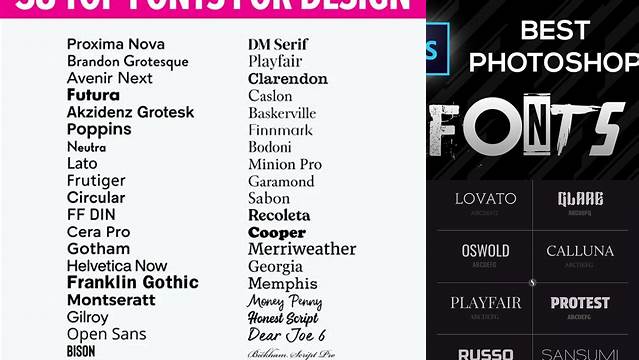
Best Fonts For Photoshop: Reddit's Top Picks
Hey guys! Ever scrolled through Reddit threads looking for the perfect font for your Photoshop project? It’s a rabbit hole, I know! But fear not, because we're diving deep into the best fonts for Photoshop, straight from the Reddit community’s top recommendations. Whether you’re designing a logo, creating stunning typography, or just adding some flair to your visuals, choosing the right font is crucial. Let's explore the world of Photoshop fonts together and find the perfect match for your creative endeavors. From sleek and modern to vintage and quirky, the options are endless. So, grab your coffee, and let’s get started on this font-astic journey!
1. Best Free Fonts for Photoshop According to Reddit
Finding the best free fonts for Photoshop can feel like searching for a needle in a haystack, but Reddit users have come through with some stellar recommendations. When it comes to designing, no one wants to break the bank just to get the perfect typeface. Many Redditors swear by websites like Google Fonts, which offers a vast library of open-source fonts that are not only free but also high-quality. Some of the standout favorites often mentioned include Montserrat, a versatile sans-serif that works beautifully in various contexts, and Roboto, another widely used and appreciated font known for its clean and modern aesthetic. Open Sans is another strong contender, praised for its readability and adaptability, making it an excellent choice for body text as well as headings. The beauty of these free fonts is that they offer a professional look without costing a dime, which is perfect for both budding designers and seasoned pros looking to expand their font arsenal. Besides Google Fonts, sites like Font Squirrel and DaFont are also goldmines, offering a wide array of styles from classic to quirky. However, it's always a good idea to double-check the licensing terms to ensure the font is suitable for your intended use, especially for commercial projects. Remember, the right font can make or break a design, so taking the time to explore these free options can be incredibly rewarding.
2. Top Premium Fonts Recommended by Reddit Photoshop Users
While free fonts are fantastic, sometimes you need that extra something that premium fonts offer. Reddit Photoshop users often share their favorite premium fonts, and the recommendations are worth considering if you're looking for a distinctive typeface. Premium fonts often come with more extensive character sets, including various weights, styles, and glyphs, giving you greater flexibility and control over your typography. Popular foundries like MyFonts, Adobe Fonts, and Creative Market are frequently mentioned, each offering a vast selection of fonts crafted by talented designers. Fonts like Proxima Nova and Helvetica Now are frequently lauded for their versatility and timeless appeal, making them solid investments for any designer. Others, like Futura and Avenir, are celebrated for their modern and geometric forms, ideal for branding and display purposes. What sets premium fonts apart is not just their aesthetic quality but also the level of polish and attention to detail. The kerning, spacing, and overall design are meticulously crafted, resulting in a typeface that looks professional and refined. Investing in a well-designed premium font can elevate your work, giving your projects a distinctive edge. Furthermore, premium fonts often come with excellent support and updates, ensuring they remain compatible with the latest software and design trends. So, if you're serious about typography, exploring the world of premium fonts is definitely worth the investment.
3. Fonts for Logos in Photoshop: Reddit's Choice
Choosing the right font for a logo is crucial, and Reddit users have plenty of opinions on the best fonts for logos in Photoshop. A logo font needs to be memorable, readable, and reflective of the brand's identity. Sans-serif fonts like Montserrat, Bebas Neue, and Futura are frequently recommended for their clean and modern appearance, making them suitable for a wide range of businesses. These fonts offer excellent legibility, even at smaller sizes, which is essential for logo design. Serif fonts, such as Playfair Display and Garamond, can also be effective for logos, especially when aiming for a more classic or elegant look. The key is to select a font that aligns with the brand’s personality and target audience. For instance, a tech company might prefer a sleek, sans-serif font, while a luxury brand might opt for a sophisticated serif typeface. Reddit discussions often highlight the importance of font pairing, where combining two complementary fonts can create a visually appealing and balanced logo. For example, pairing a bold sans-serif for the main logo text with a delicate serif for the tagline can add depth and interest. It’s also worth considering custom fonts or modifying existing ones to create a unique logo that stands out from the competition. Ultimately, the best font for a logo is one that is both aesthetically pleasing and functionally effective, conveying the brand’s message clearly and memorably.
4. Best Cursive Fonts for Photoshop Recommended on Reddit
Cursive fonts can add a touch of elegance and personality to your designs, and the Reddit community has some fantastic recommendations for the best cursive fonts for Photoshop. Whether you’re working on wedding invitations, branding materials, or artistic projects, a well-chosen cursive font can make a significant impact. Fonts like Brush Script MT and Pacifico are popular choices for their flowing strokes and calligraphic feel. These fonts evoke a sense of warmth and creativity, making them ideal for designs that require a personal touch. Another favorite is Great Vibes, known for its graceful loops and swashes, perfect for adding a touch of sophistication. When using cursive fonts, readability is key, so it’s important to choose a font that is both beautiful and legible. Reddit users often advise using cursive fonts sparingly, primarily for headings or accents, rather than for body text. Pairing a cursive font with a clean sans-serif can create a visually appealing contrast, balancing elegance with clarity. Additionally, consider the overall tone of your design. A formal event might call for a more refined cursive font, while a casual project might benefit from a more playful script. Exploring different cursive styles, from classic calligraphy to modern brush lettering, can help you find the perfect match for your creative vision. Remember, a well-chosen cursive font can transform your design, adding character and charm.
5. Modern Fonts for Photoshop: Reddit's Favorite
For a sleek and contemporary look, modern fonts for Photoshop are the way to go, and Reddit users have plenty of suggestions. Modern fonts often feature clean lines, geometric shapes, and a minimalist aesthetic, making them ideal for designs that need a fresh and sophisticated feel. Sans-serif fonts like Montserrat, Avenir, and Futura are frequently praised for their versatility and timeless appeal. These fonts work well in a variety of contexts, from logos and branding to websites and print materials. Another popular choice is Helvetica Neue, known for its clean and neutral design, making it a reliable option for any project. When selecting a modern font, consider the overall tone and message of your design. A tech company, for example, might opt for a font with a strong, geometric structure, while a fashion brand might prefer a font with a more elegant and refined look. Reddit discussions often highlight the importance of kerning and spacing in modern fonts, as even slight adjustments can significantly impact readability and visual appeal. Font pairing is also crucial; combining a modern font with a contrasting style, such as a classic serif or a playful script, can create a dynamic and engaging design. Ultimately, the best modern font is one that effectively communicates your message while maintaining a contemporary and stylish aesthetic.
6. Vintage Fonts for Photoshop: Reddit Recommendations
If you're aiming for a retro or nostalgic feel, vintage fonts for Photoshop are your best bet, and Reddit has some excellent recommendations. Vintage fonts can evoke a sense of history and charm, adding character and depth to your designs. Fonts like Playfair Display, Garamond, and Baskerville are classic serif typefaces that exude elegance and tradition. These fonts are often used for projects that require a touch of sophistication, such as invitations, book covers, and branding materials for heritage brands. For a more rustic or industrial look, consider fonts like Courier New or American Typewriter, which have a distinct vintage typewriter aesthetic. These fonts are perfect for designs that aim to convey a sense of authenticity and craftsmanship. Reddit users often suggest exploring foundries that specialize in vintage-inspired fonts, as they offer a wide range of styles, from Art Deco to mid-century modern. When using vintage fonts, it’s important to consider the context and ensure the font aligns with the overall design concept. Pairing a vintage font with modern elements can create an interesting contrast, but it’s crucial to maintain a balance. Additionally, pay attention to the details, such as the weight and spacing of the font, to ensure readability and visual harmony. Ultimately, the right vintage font can transport your audience to another era, adding a unique and memorable touch to your design.
7. Best Fonts for Headlines in Photoshop (Reddit)
Headlines are the first thing people see, so choosing the best fonts for headlines in Photoshop is crucial. Reddit users have plenty of advice on fonts that grab attention and convey your message effectively. Bold sans-serif fonts like Montserrat, Bebas Neue, and Roboto are popular choices for headlines due to their clarity and impact. These fonts are easy to read from a distance and work well in various design styles. For a more dramatic effect, consider using a condensed sans-serif font, which can create a strong visual statement. Serif fonts, such as Playfair Display and Oswald, can also be effective for headlines, especially when aiming for a more elegant or traditional look. The key is to select a font that is both eye-catching and legible. Reddit discussions often highlight the importance of font size and spacing in headlines. A well-sized headline with proper letter spacing can make a significant difference in readability and visual appeal. Font pairing is another important consideration; combining a bold headline font with a simpler body text font can create a balanced and engaging design. It’s also worth experimenting with different font weights and styles to find the perfect tone for your headline. Ultimately, the best font for a headline is one that captures attention, communicates your message clearly, and complements the overall design.
8. Fonts for Body Text in Photoshop: Reddit's Go-To Choices
Readability is paramount when selecting fonts for body text in Photoshop, and Reddit users have some excellent go-to choices. The goal is to choose a font that is easy on the eyes and allows readers to comfortably consume the content. Sans-serif fonts like Open Sans, Roboto, and Lato are frequently recommended for their clean and legible design. These fonts have a neutral appearance, making them suitable for a wide range of applications, from websites and articles to brochures and presentations. Serif fonts, such as Georgia and Times New Roman, are also reliable options for body text, particularly in print. These fonts have a more traditional look and can add a touch of formality to your design. Reddit discussions often emphasize the importance of font size and line height when choosing a body text font. A comfortable font size and adequate line height can significantly improve readability, preventing eye strain and making the text more engaging. It’s also crucial to consider the contrast between the text and the background; sufficient contrast ensures that the text stands out and is easy to read. Font pairing is another important factor; combining a legible body text font with a more expressive headline font can create a balanced and visually appealing design. Ultimately, the best font for body text is one that prioritizes readability and allows your message to shine.
9. Unique Fonts for Photoshop Projects: Reddit's Hidden Gems
Looking for something out of the ordinary? Reddit users love to share their favorite unique fonts for Photoshop projects, those hidden gems that can add a special touch to your designs. These fonts often have distinctive characteristics, whether it's a quirky shape, an unusual weight, or a vintage-inspired style. Exploring font foundries and independent designers can lead you to discover truly unique typefaces that stand out from the crowd. Fonts with hand-drawn elements, such as handwritten scripts or textured fonts, can add a personal and artistic feel to your work. Geometric fonts, with their clean lines and modern shapes, can create a striking visual impact. Display fonts, designed specifically for headlines and titles, often come in bold and unconventional styles, perfect for making a statement. Reddit discussions often highlight the importance of using unique fonts sparingly, as they can be overpowering if overused. Pairing a unique font with a more neutral typeface can create a balanced and visually appealing design. It’s also crucial to consider the context and message of your design when selecting a unique font. The font should complement the overall aesthetic and enhance the message, rather than distract from it. Ultimately, the right unique font can set your project apart, adding personality and originality.
10. Best Display Fonts for Photoshop According to Reddit
Display fonts for Photoshop are designed to grab attention, and Reddit users have some top recommendations for making your text stand out. These fonts are typically used for headlines, titles, and other prominent text elements, where visual impact is key. Display fonts often come in bold and unconventional styles, with unique shapes, weights, and characteristics. Sans-serif fonts like Bebas Neue, Montserrat Black, and Impact are popular choices for their strong and modern appearance. Serif fonts, such as Playfair Display and Oswald, can also make a statement, especially when aiming for a more elegant or vintage look. Reddit discussions often emphasize the importance of readability, even in display fonts. While it’s tempting to choose the most eye-catching font, it’s crucial to ensure that the text remains legible. Using display fonts sparingly, and pairing them with simpler body text fonts, can create a balanced and visually effective design. It’s also worth experimenting with different font sizes and spacing to maximize the impact of your display font. Customizing the font through techniques like outlining, adding shadows, or using gradients can further enhance its visual appeal. Ultimately, the best display font is one that captures attention, communicates your message clearly, and complements the overall design aesthetic.
11. Font Pairing Tips for Photoshop (Reddit Edition)
Font pairing is an art, and Reddit users have shared some fantastic font pairing tips for Photoshop to help you create harmonious and visually appealing designs. The key to successful font pairing is to combine fonts that complement each other while maintaining a clear hierarchy and readability. A common approach is to pair a sans-serif font with a serif font, creating a balance between modernity and tradition. For example, pairing Montserrat (sans-serif) with Garamond (serif) can result in a classic and elegant look. Another strategy is to use different weights or styles within the same font family, such as pairing a bold headline with a regular body text. This creates a cohesive design while still providing visual contrast. Reddit discussions often highlight the importance of considering the overall tone and message of your design when pairing fonts. A formal project might benefit from a more traditional pairing, while a creative project could call for a more experimental approach. It’s also crucial to ensure that the fonts are legible when paired together, especially in body text. Avoid pairing fonts that are too similar, as this can create visual confusion. Instead, look for fonts with contrasting characteristics that work well together. Experimenting with different combinations and seeking feedback from others can help you develop your font pairing skills. Ultimately, successful font pairing enhances the visual appeal and readability of your design, creating a polished and professional look.
12. How to Install Fonts in Photoshop (Reddit's Guide)
Installing fonts in Photoshop is a straightforward process, and Reddit users have created helpful guides to walk you through the steps. Whether you've downloaded a new font from a website or purchased a font pack, getting it to work in Photoshop is essential. The basic process involves downloading the font files (usually in .otf or .ttf format) and installing them on your operating system. On Windows, you can do this by right-clicking the font file and selecting "Install." Alternatively, you can copy the font files into the Fonts folder in your Windows directory (usually located at C:\Windows\Fonts). On macOS, you can double-click the font file and click the "Install Font" button in Font Book. Reddit users often emphasize the importance of restarting Photoshop after installing new fonts, as this ensures that the program recognizes the newly added fonts. If you're still having trouble, closing and reopening your entire computer may also be helpful. Some discussions also address font management software, which can help you organize and activate fonts more efficiently. Programs like FontExplorer X Pro and RightFont are popular choices for designers who work with a large number of fonts. Additionally, Adobe Creative Cloud subscribers have access to Adobe Fonts, which allows you to activate fonts directly within Photoshop without needing to install them manually. By following these steps, you can easily install new fonts and expand your typographic toolkit in Photoshop.
13. Troubleshooting Font Issues in Photoshop (Reddit Tips)
Encountering font issues in Photoshop can be frustrating, but Reddit users have compiled a wealth of troubleshooting tips to help you resolve these problems. Common issues include fonts not appearing in the font menu, fonts displaying incorrectly, or fonts causing performance problems. One of the first steps is to ensure that the font is properly installed on your operating system. As mentioned earlier, restarting Photoshop (and even your computer) after installing fonts can often resolve many issues. If a font appears distorted or pixelated, it could be a font cache issue. Reddit users recommend clearing Photoshop's font cache or your operating system's font cache to fix this. The specific steps for clearing the cache vary depending on your operating system and Photoshop version, but you can usually find detailed instructions online. Another common issue is font conflicts, where multiple versions of the same font are installed on your system. This can cause unexpected behavior in Photoshop. Using a font management tool can help you identify and resolve font conflicts. Additionally, make sure that the font you're using is compatible with Photoshop. Some older fonts may not work correctly with newer versions of the software. If you're still experiencing problems, try updating Photoshop to the latest version, as updates often include bug fixes and improved font handling. By following these troubleshooting tips, you can overcome common font issues and ensure a smooth design workflow in Photoshop.
14. Best Font Websites Recommended by Reddit Users
Finding high-quality fonts can be a game-changer for your design projects, and Reddit users have shared their go-to websites for discovering the best fonts. Google Fonts is a perennial favorite, offering a vast library of free and open-source fonts that are both high-quality and easy to use. The fonts on Google Fonts are web-optimized, making them ideal for both print and digital designs. Another popular recommendation is Adobe Fonts, which is included with an Adobe Creative Cloud subscription. Adobe Fonts offers a wide selection of fonts from renowned foundries, all seamlessly integrated with Photoshop and other Adobe applications. For premium fonts, MyFonts and Fontshop are frequently mentioned as excellent resources. These websites offer a vast array of fonts from independent designers and foundries, with detailed font previews and licensing information. Creative Market is another popular platform, offering fonts, graphics, and other design resources, often with unique and handcrafted styles. Reddit users also recommend exploring individual font foundries, such as Hoefler&Co., Monotype, and Linotype, for their expertly crafted typefaces. When choosing a font website, consider your budget, the type of fonts you're looking for, and the licensing terms. Some websites offer free fonts for personal use but require a commercial license for business projects. Always double-check the licensing agreement before using a font in your designs. By exploring these recommended websites, you can expand your font library and find the perfect typefaces for your creative endeavors.
15. Trending Fonts on Reddit's Photoshop Communities
Keeping up with the latest font trends can give your designs a contemporary edge, and Reddit's Photoshop communities are a great place to discover trending fonts. These trends often reflect broader design aesthetics, with certain styles gaining popularity for their visual appeal and versatility. Currently, clean and minimalist sans-serif fonts continue to be a strong trend, with typefaces like Inter, Poppins, and Manrope being frequently used in various design projects. These fonts offer excellent readability and a modern aesthetic, making them suitable for logos, websites, and print materials. Geometric sans-serif fonts, such as Futura and Avenir, are also experiencing a resurgence, favored for their clean lines and geometric shapes. In the serif category, fonts with a touch of personality, like Playfair Display and Merriweather, are gaining traction for their elegance and readability. Vintage-inspired fonts, with their retro charm, are also trending, adding a nostalgic feel to designs. Hand-drawn and script fonts, with their unique and personal touch, are popular for adding character and warmth. Reddit discussions often highlight the importance of using trending fonts judiciously, ensuring they align with the overall design concept and message. While it's tempting to jump on the latest bandwagon, it's crucial to select fonts that are both stylish and functional. By staying informed about font trends and experimenting with different typefaces, you can create designs that are both contemporary and timeless.
16. Best Fonts for Posters in Photoshop (Reddit's Insights)
Creating eye-catching posters requires careful font selection, and Reddit users have shared their insights on the best fonts for posters in Photoshop. A poster font needs to be legible from a distance, visually appealing, and reflective of the poster's message and style. Bold display fonts are often the go-to choice for headlines and titles, grabbing attention and conveying the main message effectively. Sans-serif fonts like Bebas Neue, Impact, and Montserrat Black are popular for their strong and modern appearance. Serif fonts, such as Playfair Display and Oswald, can also be effective for headlines, especially when aiming for a more elegant or vintage aesthetic. For body text, readability is key, so sans-serif fonts like Open Sans and Roboto are frequently recommended. Reddit discussions often emphasize the importance of font hierarchy in poster design. Using different font sizes, weights, and styles can help create a clear visual structure, guiding the viewer's eye through the information. Font pairing is also crucial; combining a bold headline font with a simpler body text font can create a balanced and engaging design. Consider the poster's overall style and target audience when selecting fonts. A poster for a music event might benefit from a more playful and energetic font, while a poster for a corporate conference might call for a more professional and understated typeface. Ultimately, the best font for a poster is one that captures attention, communicates the message clearly, and complements the overall design.
17. Font Styles for Photoshop: Reddit's Favorites
Exploring different font styles for Photoshop can significantly enhance your design capabilities. Reddit users have shared their favorite font styles, each with its unique characteristics and applications. Sans-serif fonts are a versatile and modern choice, known for their clean lines and readability. They are ideal for a wide range of projects, from websites and logos to print materials and presentations. Serif fonts, with their classic and elegant appearance, add a touch of formality and tradition to designs. They are often used in books, newspapers, and other text-heavy applications. Script fonts, with their flowing and calligraphic styles, bring a personal and artistic touch to designs. They are perfect for invitations, greeting cards, and other projects that require a handwritten feel. Display fonts are designed to grab attention, with bold and unconventional styles that make them ideal for headlines and titles. Monospace fonts, where each character occupies the same amount of horizontal space, create a technical and uniform look. They are often used in coding environments and for creating tables and charts. Reddit discussions highlight the importance of understanding the nuances of each font style and choosing the right one for the specific project. Experimenting with different styles and combinations can help you develop your typographic skills and create visually appealing designs. Ultimately, the best font style is one that effectively communicates your message and complements the overall design aesthetic.
18. Using Custom Fonts in Photoshop: Reddit's Guide
Using custom fonts in Photoshop can add a unique and personalized touch to your designs. Reddit users have shared their guides on how to effectively incorporate custom fonts into your projects. Custom fonts can include fonts you've created yourself, fonts you've downloaded from independent designers, or fonts you've modified to suit your specific needs. The first step is to ensure that the custom font is properly installed on your operating system, following the same steps as installing any other font. Once the font is installed, it should appear in Photoshop's font menu. Reddit users often recommend organizing your custom fonts using a font management tool, especially if you have a large font library. This makes it easier to find and activate the fonts you need for each project. When using custom fonts, it’s important to consider readability and legibility, especially for body text. While a unique custom font can be eye-catching, it shouldn't compromise the overall readability of your design. Font pairing is also crucial; combining a custom font with a more neutral typeface can create a balanced and visually appealing design. Additionally, be mindful of licensing restrictions when using custom fonts. Some fonts may be free for personal use but require a commercial license for business projects. Always double-check the licensing agreement before using a custom font in your designs. By following these guidelines, you can seamlessly integrate custom fonts into your Photoshop projects and add a distinctive flair to your work.
19. Free vs. Premium Fonts for Photoshop: Reddit Weighs In
The debate between free vs. premium fonts for Photoshop is a common topic on Reddit, with users weighing the pros and cons of each option. Free fonts are readily available and can be a great resource for designers on a budget. Websites like Google Fonts and DaFont offer a vast selection of free fonts, covering a wide range of styles and applications. However, free fonts may sometimes lack the polish and refinement of premium fonts, and their licensing terms can vary. Premium fonts, on the other hand, often come with more extensive character sets, including various weights, styles, and glyphs, providing greater flexibility and control. They are typically crafted with meticulous attention to detail, ensuring high quality and readability. Premium fonts also often come with excellent support and updates, ensuring compatibility with the latest software and design trends. Reddit discussions often emphasize that the choice between free and premium fonts depends on the specific project and budget. For personal projects or smaller designs, free fonts can be a great option. However, for commercial projects or designs that require a professional and polished look, investing in premium fonts may be worthwhile. It's also important to consider the licensing terms when choosing a font, whether it's free or premium, to ensure it aligns with your intended use. Ultimately, both free and premium fonts have their place in a designer's toolkit, and the best choice depends on the individual needs and circumstances.
20. Font Licensing for Photoshop Projects: Reddit's Advice
Understanding font licensing for Photoshop projects is crucial to avoid legal issues, and Reddit users have shared valuable advice on this topic. Font licenses dictate how a font can be used, including whether it can be used for personal or commercial projects, in print or digital media, and whether it can be embedded in documents or software. Most free fonts come with some form of licensing, often under the Open Font License (OFL), which allows for free use, modification, and distribution, even for commercial purposes. However, it's always essential to read the specific license agreement to understand any restrictions or requirements. Premium fonts typically come with more detailed licensing agreements, which may vary depending on the foundry and the specific font. These licenses often distinguish between different types of usage, such as desktop use (for creating print and digital designs), web use (for embedding fonts on websites), and app use (for embedding fonts in mobile applications). Reddit discussions often emphasize the importance of purchasing the appropriate license for your intended use. Using a font without the proper license can result in legal penalties, including fines and legal action. When in doubt, it's always best to contact the font foundry or designer to clarify the licensing terms. Additionally, maintaining records of your font licenses can help you stay organized and ensure compliance. By understanding font licensing and adhering to the terms, you can protect yourself and your clients from potential legal issues.
21. Best Script Fonts for Wedding Invitations (Reddit's Picks)
For wedding invitations, the choice of font can set the tone for the entire event. Reddit users have shared their top picks for best script fonts for wedding invitations, known for their elegance and romantic touch. Script fonts, with their flowing and calligraphic styles, are perfect for adding a personal and artistic feel to wedding invitations. Fonts like Brush Script MT, Pacifico, and Great Vibes are popular choices for their graceful strokes and sophisticated appearance. These fonts evoke a sense of warmth and creativity, making them ideal for designs that require a personal touch. Another favorite is Alex Brush, known for its elegant and classic letterforms, perfect for adding a touch of sophistication. When using script fonts for wedding invitations, readability is key, so it’s important to choose a font that is both beautiful and legible. Reddit users often advise using script fonts sparingly, primarily for names or headings, rather than for body text. Pairing a script font with a clean sans-serif or serif font can create a visually appealing contrast, balancing elegance with clarity. Consider the overall theme of your wedding when selecting fonts. A formal event might call for a more refined script font, while a casual wedding might benefit from a more playful script. Ultimately, the right script font can transform your wedding invitations, adding character and charm to your special day.
22. Geometric Fonts for Modern Designs (Reddit's List)
Geometric fonts are a staple in modern design, known for their clean lines and simple shapes. Reddit users have compiled a list of their favorites, ideal for creating a contemporary and minimalist aesthetic. These fonts often feature precise, geometric forms, making them suitable for logos, branding, websites, and print materials. Futura, with its classic geometric shapes, is a perennial favorite, often used for its modern and timeless appeal. Avenir, another popular choice, offers a similar geometric aesthetic with a slightly softer feel. Montserrat, a versatile sans-serif font, also incorporates geometric elements, making it a great option for a wide range of projects. Other notable geometric fonts include Gotham, Circular, and Proxima Nova, each with its unique characteristics and applications. Reddit discussions often highlight the importance of spacing and kerning when working with geometric fonts, as these elements can significantly impact readability and visual harmony. Font pairing is also crucial; combining a geometric font with a contrasting style, such as a humanist sans-serif or a classic serif, can create a dynamic and engaging design. When selecting a geometric font, consider the overall tone and message of your design. A tech company, for example, might opt for a font with a strong, geometric structure, while a creative agency might prefer a font with a more playful and quirky look. Ultimately, the best geometric font is one that effectively communicates your message while maintaining a contemporary and stylish aesthetic.
23. Best Fonts for Branding in Photoshop (Reddit's Recommendations)
Choosing the right fonts is crucial for effective branding, and Reddit users have shared their recommendations for the best fonts for branding in Photoshop. Branding fonts need to be memorable, versatile, and reflective of the brand's identity and values. Sans-serif fonts like Montserrat, Roboto, and Open Sans are frequently recommended for their clean and modern appearance, making them suitable for a wide range of businesses. These fonts offer excellent legibility, even at smaller sizes, which is essential for logo design and other branding materials. Serif fonts, such as Playfair Display and Garamond, can also be effective for branding, especially when aiming for a more classic or elegant look. The key is to select a font that aligns with the brand’s personality and target audience. For instance, a tech company might prefer a sleek, sans-serif font, while a luxury brand might opt for a sophisticated serif typeface. Reddit discussions often highlight the importance of font consistency across all branding materials, from logos and websites to business cards and marketing collateral. Font pairing is another critical consideration; combining two complementary fonts can create a visually appealing and balanced brand identity. It’s also worth considering custom fonts or modifying existing ones to create a unique brand identity that stands out from the competition. Ultimately, the best fonts for branding are those that effectively communicate the brand’s message, resonate with its target audience, and create a consistent and memorable visual identity.
24. Calligraphy Fonts for Elegant Designs (Reddit's Favorites)
Calligraphy fonts add an element of grace and sophistication to any design. Reddit users have shared their favorite calligraphy fonts for creating elegant and timeless designs. These fonts are inspired by traditional handwriting, featuring flowing strokes and artistic flourishes. Calligraphy fonts are perfect for wedding invitations, greeting cards, logos, and any project that requires a touch of elegance. Popular choices include Great Vibes, known for its graceful loops and swashes, and Alex Brush, celebrated for its elegant and classic letterforms. Other favorites include Allura, a flowing script with a modern touch, and Windsong, a delicate and refined calligraphy font. When using calligraphy fonts, readability is key, so it’s important to choose a font that is both beautiful and legible. Reddit users often advise using calligraphy fonts sparingly, primarily for headings or accents, rather than for body text. Pairing a calligraphy font with a clean sans-serif can create a visually appealing contrast, balancing elegance with clarity. Additionally, consider the overall tone of your design. A formal event might call for a more refined calligraphy font, while a casual project might benefit from a more playful script. Exploring different calligraphy styles, from traditional to modern, can help you find the perfect match for your creative vision. Remember, a well-chosen calligraphy font can transform your design, adding character and charm.
25. Best Fonts for Social Media Graphics (Reddit Recommendations)
Creating engaging social media graphics requires careful font selection, and Reddit users have shared their recommendations for the best fonts for social media. Social media graphics need to grab attention quickly and communicate the message effectively, so the fonts you choose play a crucial role. Bold sans-serif fonts like Montserrat, Roboto, and Open Sans are popular choices for their clarity and readability, especially on smaller screens. These fonts work well for headlines, captions, and other text elements. For a more unique and eye-catching look, consider using display fonts or script fonts, but use them sparingly to maintain readability. Reddit discussions often highlight the importance of font hierarchy in social media graphics. Using different font sizes, weights, and styles can help create a clear visual structure, guiding the viewer's eye through the information. Font pairing is also crucial; combining a bold headline font with a simpler body text font can create a balanced and engaging design. Consider the platform and the audience when selecting fonts for social media. Instagram, for example, often favors more visually striking fonts, while LinkedIn might call for a more professional and understated typeface. It’s also important to ensure that the fonts you choose are web-safe and display correctly across different devices and browsers. Ultimately, the best fonts for social media graphics are those that capture attention, communicate the message clearly, and complement the overall visual style.
26. Fonts that Look Good in Small Sizes (Reddit's Choices)
Readability is paramount, especially when dealing with small font sizes. Reddit users have shared their go-to choices for fonts that look good in small sizes, ensuring your text remains legible even in limited spaces. Sans-serif fonts are generally the best option for small text, as their clean lines and simple shapes make them easier to read than more ornate typefaces. Open Sans, Roboto, and Lato are frequently recommended for their excellent legibility and neutral appearance. These fonts are designed to be easily readable in a variety of contexts, from websites and articles to mobile apps and print materials. Another popular choice is Verdana, specifically designed for on-screen readability, making it a great option for small text on digital displays. Reddit discussions often emphasize the importance of font spacing and kerning when using small fonts. Proper spacing can significantly improve readability, preventing letters from blending together. Additionally, consider the contrast between the text and the background; sufficient contrast ensures that the text stands out and is easy to read. Using a slightly bolder font weight can also help improve legibility in small sizes. Ultimately, the best fonts for small sizes are those that prioritize readability and maintain clarity even in limited spaces.
27. How to Create Your Own Font (Reddit Resources)
Creating your own font can be a rewarding and creative endeavor, and Reddit users have shared valuable resources for those interested in learning how to create their own font. Whether you're a designer looking to develop a unique typeface or simply a typography enthusiast, there are several tools and methods available to bring your font ideas to life. Font design software, such as FontLab Studio, Glyphs, and RoboFont, are powerful tools that provide comprehensive features for creating and editing fonts. These programs allow you to design individual characters, adjust spacing and kerning, and generate font files in various formats. For beginners, online font editors like FontStruct and BirdFont offer a more accessible way to create fonts, with user-friendly interfaces and simplified tools. Reddit discussions often highlight the importance of understanding basic typography principles before embarking on font creation. Learning about letter anatomy, spacing, kerning, and different font styles can help you create a more professional and visually appealing typeface. Drawing letters by hand and then digitizing them is a common approach, allowing for a more organic and personal touch. Alternatively, you can start with existing fonts and modify them to create your own unique style. Testing your font in various contexts, such as different sizes and applications, is crucial to ensure readability and visual harmony. Ultimately, creating your own font is a process that combines technical skills with artistic creativity, resulting in a unique and personalized typeface.
28. Best Fonts for Resumes in Photoshop (Reddit's Advice)
The font you choose for your resume can significantly impact the first impression you make on potential employers. Reddit users have shared their advice on the best fonts for resumes in Photoshop, focusing on readability and professionalism. Clean and legible sans-serif fonts like Arial, Calibri, and Helvetica are popular choices for their modern and straightforward appearance. These fonts are easy to read, even in smaller sizes, making them suitable for both headings and body text. Serif fonts, such as Garamond and Times New Roman, can also be effective for resumes, especially when aiming for a more classic and formal look. Reddit discussions often emphasize the importance of consistency in font usage throughout the resume. Using a consistent font style for headings and body text creates a polished and professional appearance. Font size is another crucial consideration; using a font size that is too small can make your resume difficult to read, while a font size that is too large can appear unprofessional. A font size of 10-12 points is generally recommended for body text, with slightly larger sizes for headings. Font pairing can also be used to enhance the visual appeal of your resume, but it’s important to keep it simple and avoid using too many different fonts. Pairing a clean sans-serif font for headings with a readable serif font for body text can create a balanced and visually engaging resume. Ultimately, the best fonts for resumes are those that prioritize readability, professionalism, and consistency, helping you make a positive impression on potential employers.
29. Fonts with the Best Kerning (Reddit's Top Picks)
Kerning, the spacing between individual letters, plays a crucial role in the readability and visual appeal of a font. Reddit users have shared their top picks for fonts with the best kerning, highlighting typefaces that offer optimal spacing and letter fit. Well-kerned fonts ensure that letters are evenly spaced, creating a harmonious and professional look. Poor kerning can make text appear uneven and difficult to read, detracting from the overall design. Many professional-quality fonts are meticulously kerned by their designers, ensuring optimal readability in various contexts. Fonts like Proxima Nova, Helvetica Neue, and Gotham are frequently praised for their excellent kerning and overall typographic quality. These sans-serif fonts offer consistent spacing and letter fit, making them reliable choices for a wide range of applications. Serif fonts, such as Garamond and Minion Pro, also exhibit excellent kerning, making them suitable for text-heavy designs. Reddit discussions often emphasize the importance of paying attention to kerning, especially when working with display fonts or headlines. Manual kerning adjustments may be necessary to fine-tune the spacing between certain letter combinations, ensuring a visually pleasing result. Using font editing software can help you adjust kerning manually, but starting with a well-kerned font can save you time and effort. Ultimately, fonts with the best kerning enhance readability and visual appeal, creating a polished and professional design.
30. Combining Fonts with Photoshop Effects (Reddit Tutorials)
Combining fonts with Photoshop effects can elevate your designs, adding depth, texture, and visual interest. Reddit users have shared helpful tutorials and tips on combining fonts with Photoshop effects. Photoshop offers a wide range of effects, including shadows, glows, outlines, textures, and gradients, which can be applied to text layers to create stunning typography. Adding a subtle shadow to text can create a sense of depth, making the letters stand out from the background. Glows can add a vibrant and eye-catching effect, perfect for headlines and titles. Outlines can define the edges of letters, improving readability and creating a more distinct visual impact. Textures can add a tactile feel to your designs, making them more engaging and visually appealing. Gradients can create smooth color transitions, adding depth and dimension to your typography. Reddit discussions often highlight the importance of using Photoshop effects judiciously, avoiding over-the-top effects that can detract from readability. Experimenting with different combinations of fonts and effects can help you achieve a unique and visually appealing result. Font pairing is also crucial when combining fonts with effects; selecting fonts that complement each other can enhance the overall design. Consider the overall tone and message of your design when choosing effects. A subtle effect might be appropriate for a professional design, while a more dramatic effect might be suitable for a creative project. Ultimately, combining fonts with Photoshop effects can transform your typography, adding visual interest and creating a memorable design.